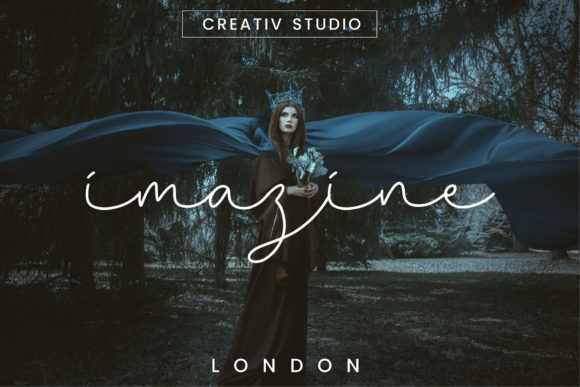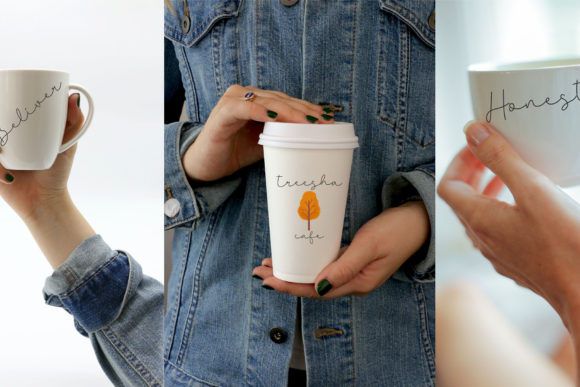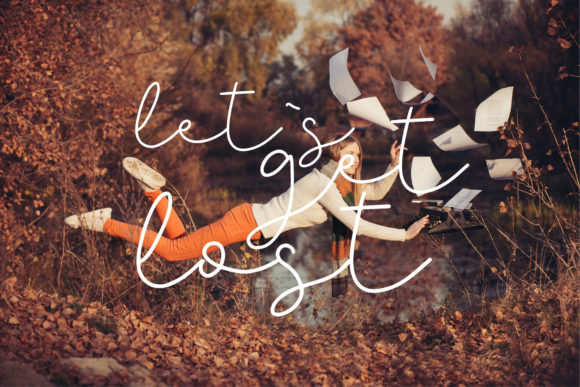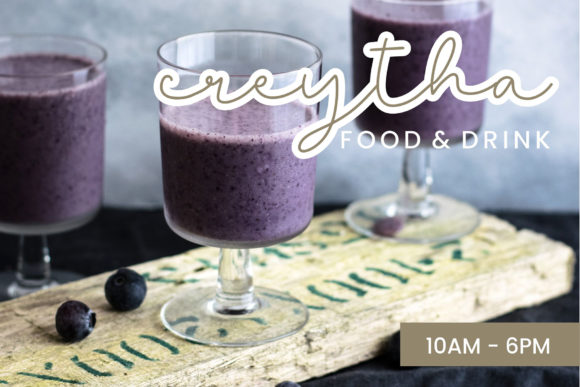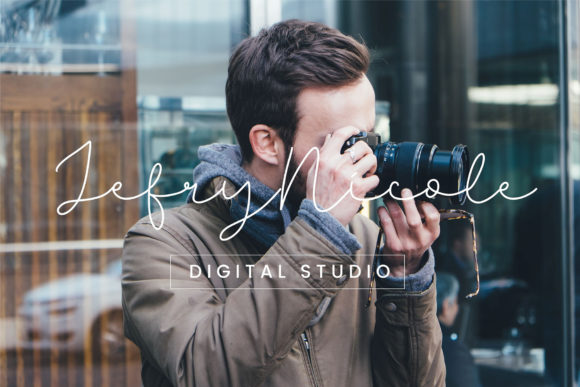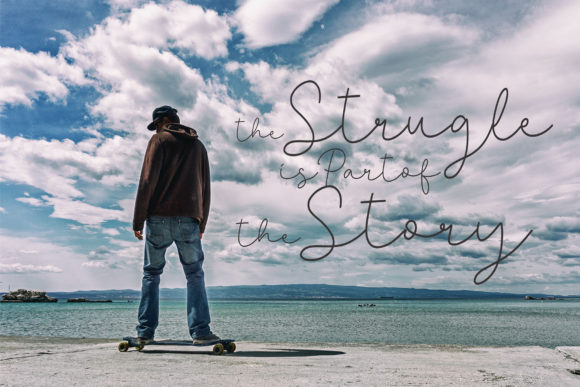
Introducing Estera Font: The Epitome of Romance and Elegance
Are you a designer or crafter looking for a font that exudes romance and sophistication? Look no further than Estera Font, a beautiful handwritten font that is sure to elevate your designs to new heights. With its delicate and flowing characters, Estera Font is the perfect choice for anyone seeking to add a personalized touch to their work.
The Characteristics of Estera Font
Estera Font is a romantic and dreamy handwritten font that boasts a range of characteristics that make it truly unique. Its delicate and flowing characters are carefully crafted to create a sense of elegance and sophistication, making it perfect for designs that require a touch of refinement. The font’s flowing lines and curves create a sense of movement and fluidity, giving it a dynamic and eye-catching appeal.
What Makes Estera Font So Versatile?
One of the things that sets Estera Font apart from other fonts is its incredible versatility. Whether you’re working on a wedding invitation, a branding project, or a craft design, Estera Font is sure to fit the bill. Its romantic and dreamy quality makes it perfect for designs that require a touch of whimsy and elegance, while its flowing characters ensure that it remains easy to read and understand.
Perfect for a Range of Design Projects
Estera Font is perfect for a wide range of design projects, including:
- Wedding invitations and stationery: Add a touch of romance and elegance to your wedding designs with Estera Font.
- Branding and packaging: Use Estera Font to create a sophisticated and refined brand identity that will set your business apart.
- Craft designs: From knitting patterns to papercraft designs, Estera Font is the perfect choice for crafters looking to add a touch of elegance to their work.
- Digital designs: Use Estera Font to create stunning digital designs, including social media graphics, blog headers, and more.
Why Choose Estera Font?
So why choose Estera Font over other fonts? Here are just a few reasons:
- Unique and eye-catching: Estera Font is a truly unique font that will set your designs apart from the crowd.
- Elegant and sophisticated: With its delicate and flowing characters, Estera Font exudes elegance and sophistication.
- Easy to read: Despite its flowing lines and curves, Estera Font is easy to read and understand, making it perfect for designs that require a clear and concise message.
- Versatile: Estera Font can be used for a wide range of design projects, from wedding invitations to digital designs.
Tips for Using Estera Font
Here are a few tips for using Estera Font in your designs:
- Pair it with a bold font: Estera Font is perfect for pairing with a bold font to create a striking contrast.
- Use it for headings: Estera Font is perfect for use as a heading font, adding a touch of elegance and sophistication to your designs.
- Experiment with colors: Estera Font looks stunning in a range of colors, from soft pastels to rich jewel tones.
In conclusion, Estera Font is a beautiful and versatile handwritten font that is perfect for designers and crafters looking to add a touch of romance and elegance to their work. With its delicate and flowing characters, Estera Font is sure to elevate your designs to new heights. Whether you’re working on a wedding invitation, a branding project, or a craft design, Estera Font is the perfect choice.